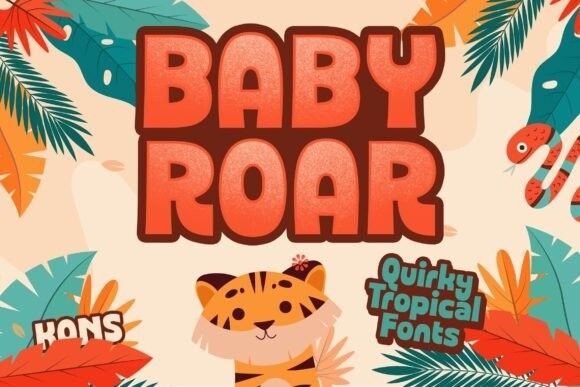
Baby Roar – Quirky Playful Fonts
Baby Roar is a fun and whimsical display font. Its natural and friendly style makes it incredibly fitting to a large pool of designs. The only limit is your imagination!